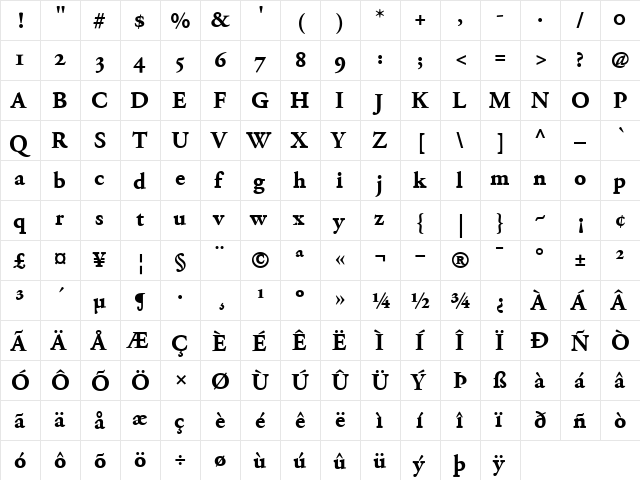
AdobeGaramondOldstyleFigures Bold
Design Context for AdobeGaramondOldstyleFigures Typeface
AdobeGaramondOldstyleFigures brings classic typographic sensibility to the table — its serifs and measured letterforms reflect centuries of print heritage. The heavy weight commands attention and anchors typographic hierarchies.
Pro Tip: Set AdobeGaramondOldstyleFigures with slightly loose tracking in headlines to let each letterform's detail read clearly at display sizes.